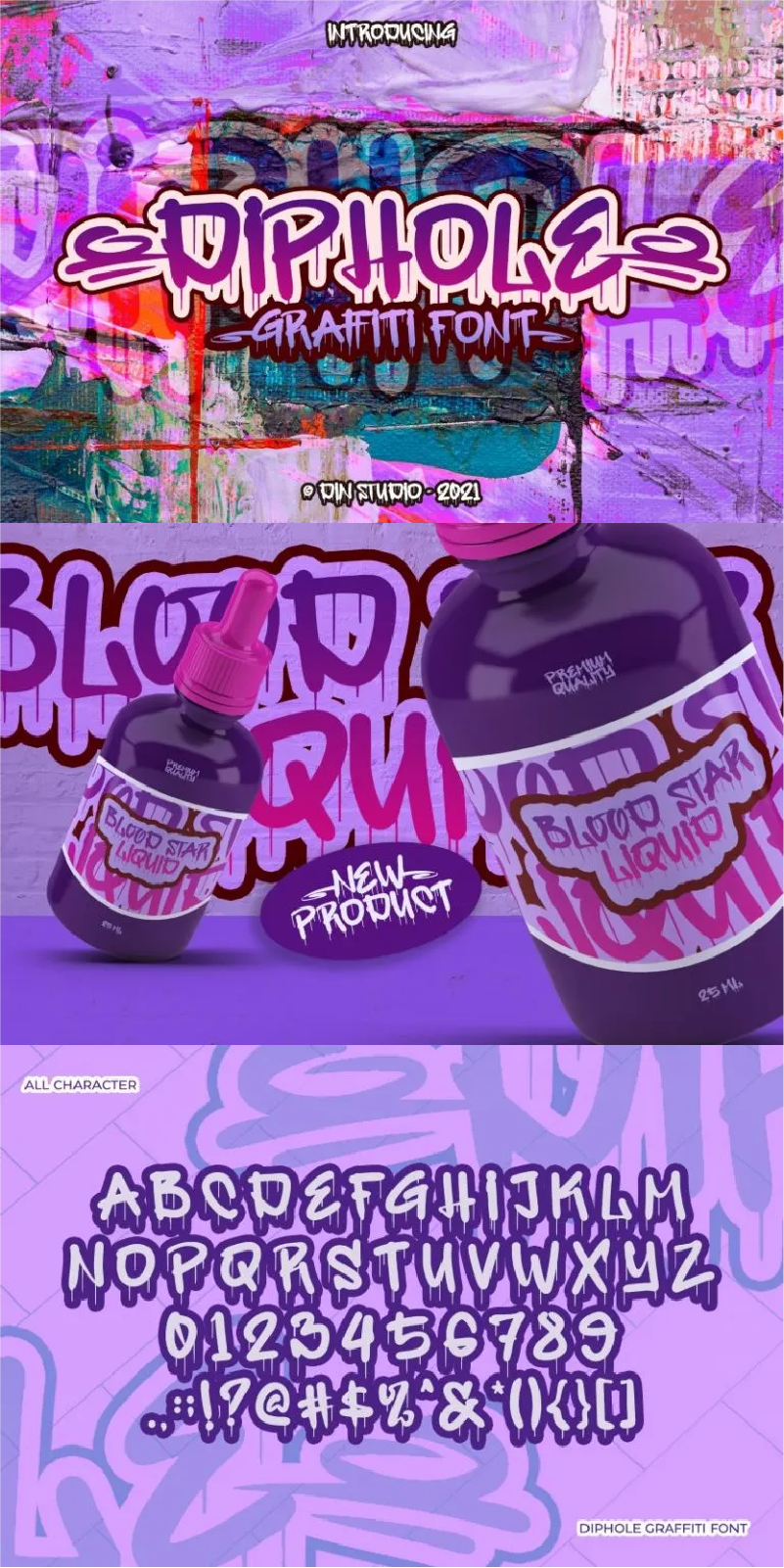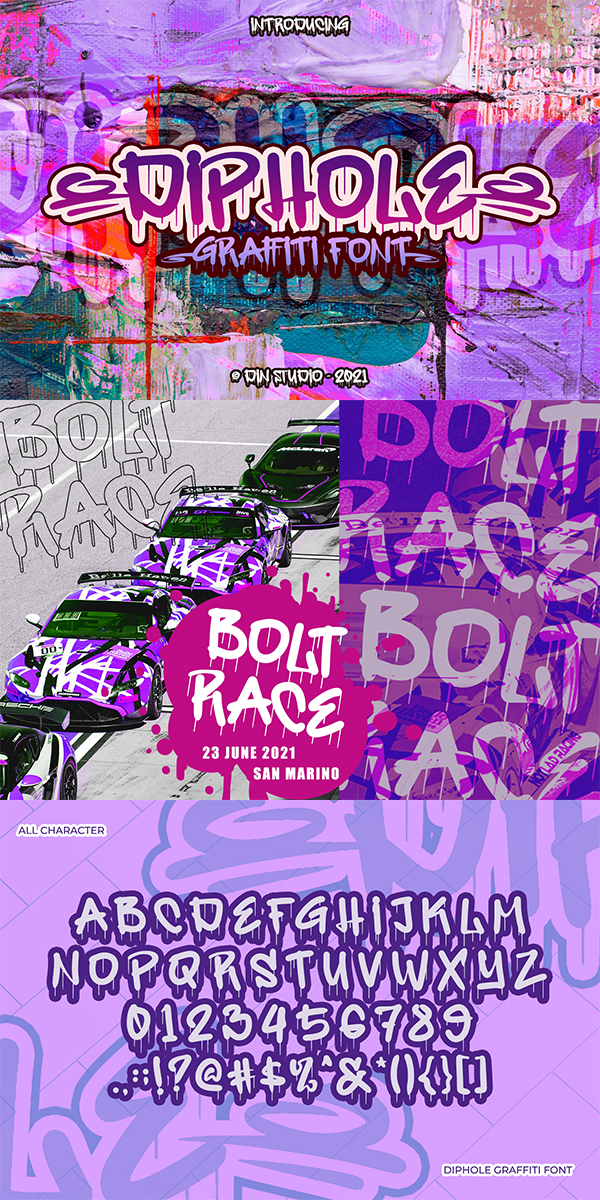
Diphole Font
About Diphole
Diphole is an aggressive urban graffiti-styled typeface all in uppercase that’s bursting with youthful energy. Beautifully designed with bold bordering, the font will work to stand out in any creative project. This graffiti font is the best to maximize the amount of street vibe and playfulness. Ideal to create amazing headings, logos, menus, and social media graphics.